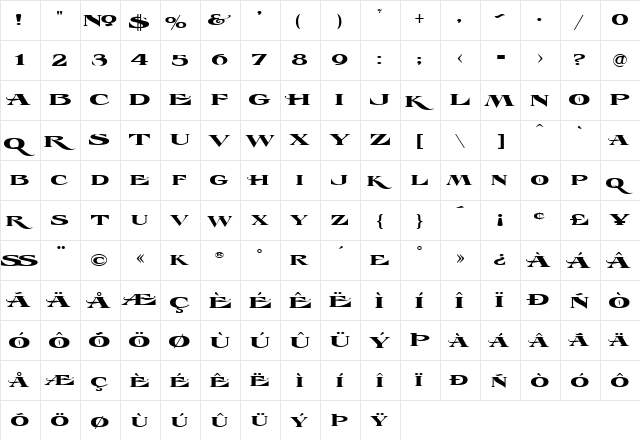
LHF Esoteric 3 REG Regular
Design Context for LHF Esoteric 3 REG Typeface
LHF Esoteric 3 REG is a composed and adaptable typeface that performs quietly and consistently across a wide range of design contexts.